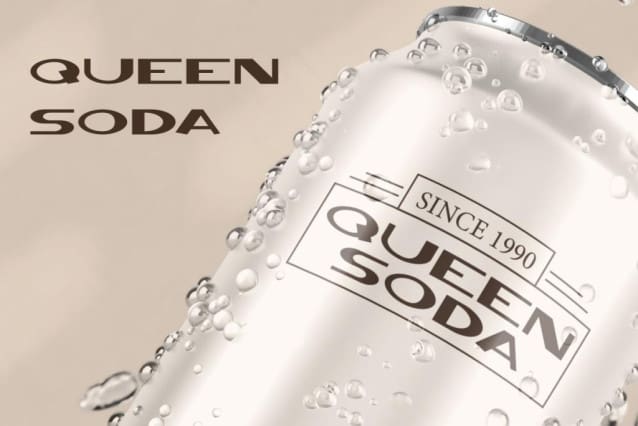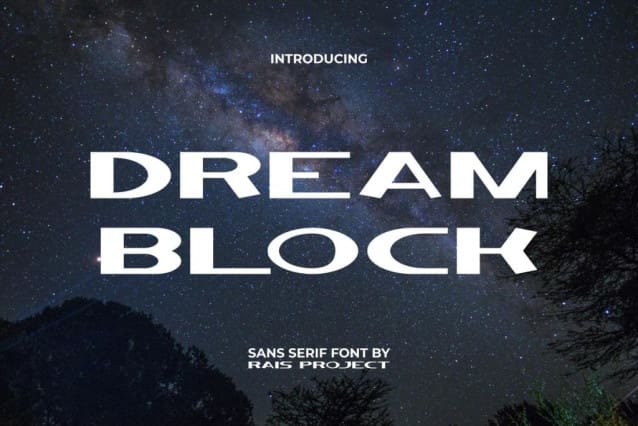
Dream Block Font
Dream Block Font is a futuristic stylish display font. This font has a large size so that it immediately catches attention and is clearly visible from a distance! It will be good for any designs, such as brand image, cover, custom design, greeting card, invitation, label, menu, poster, product packaging, quote, signage, web, and more!
Dream Block Font includes a full set of Uppercase and Lowercase Letters, Numerals, Punctuation, and Symbol. This modern stylish font will be suitable for various industries, such as accessories, advertisement, cafe, event organizer, fashion, photography, printing, publishing, sport, etc.